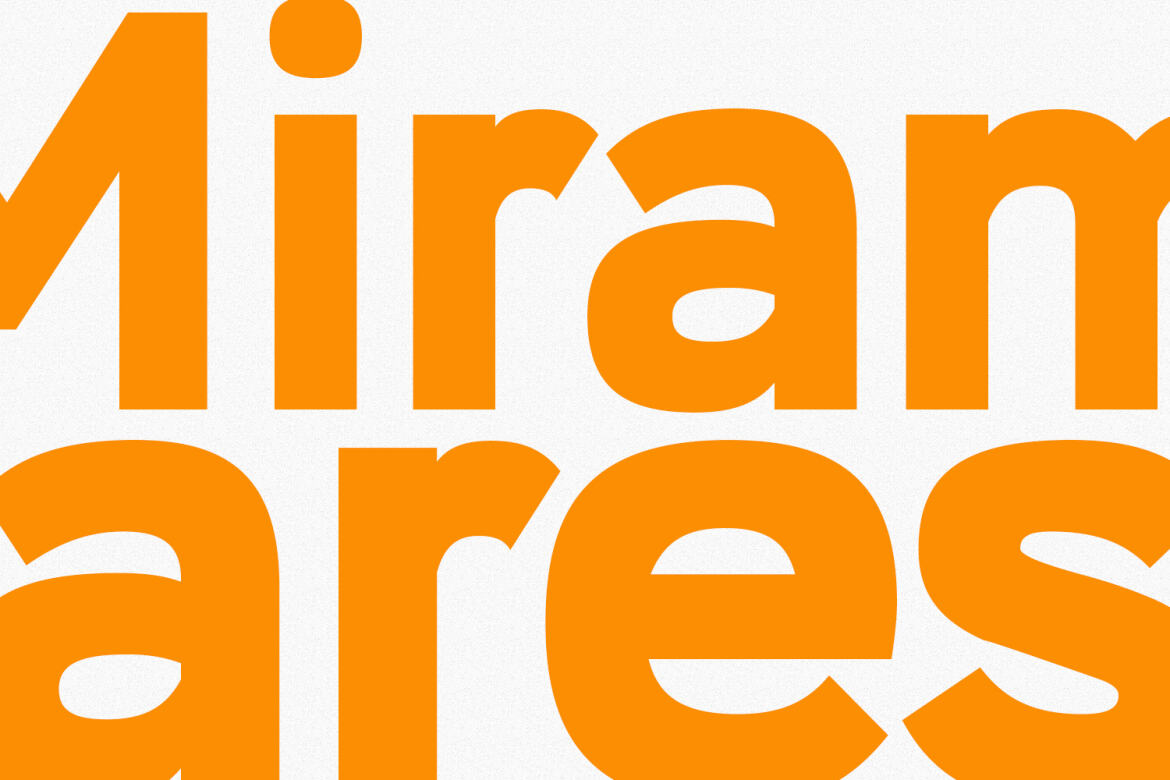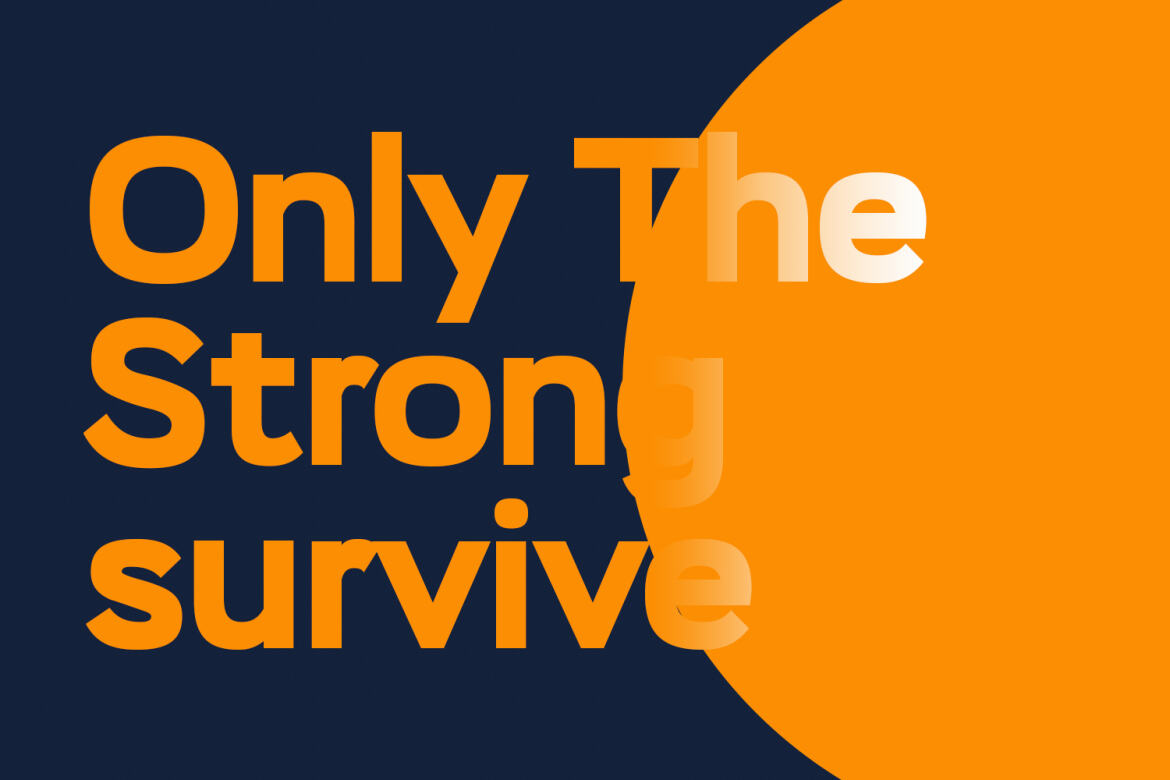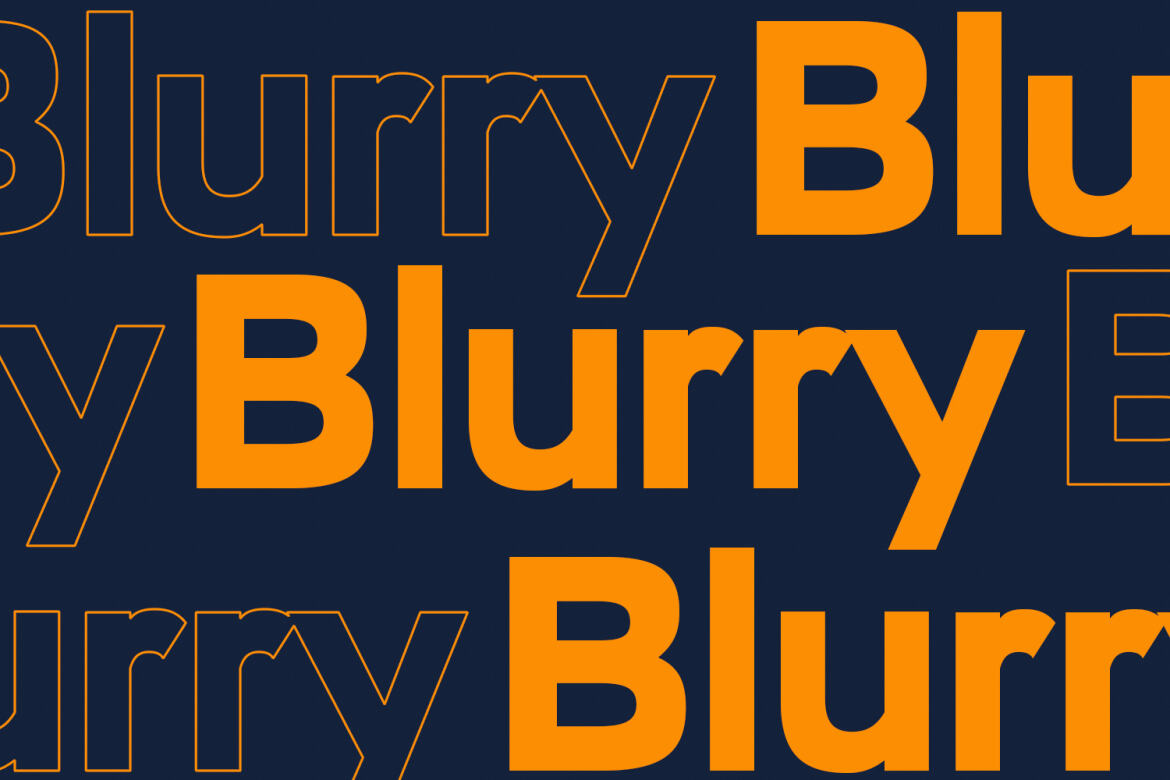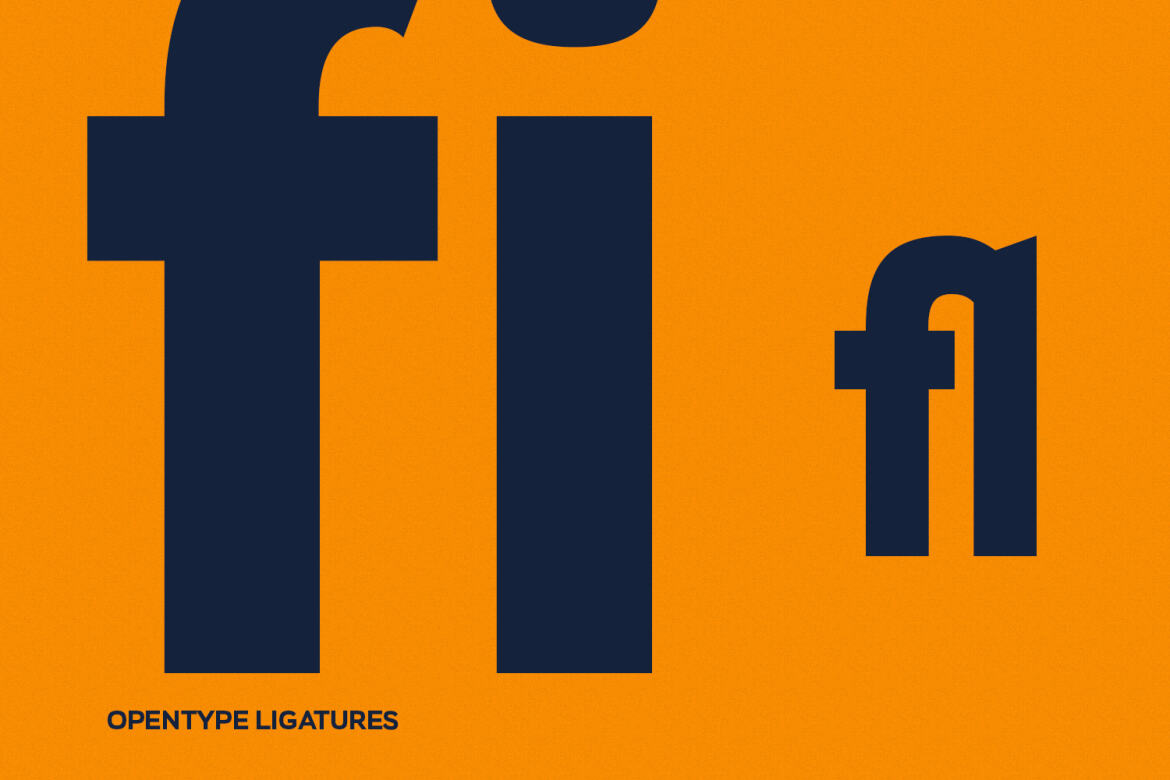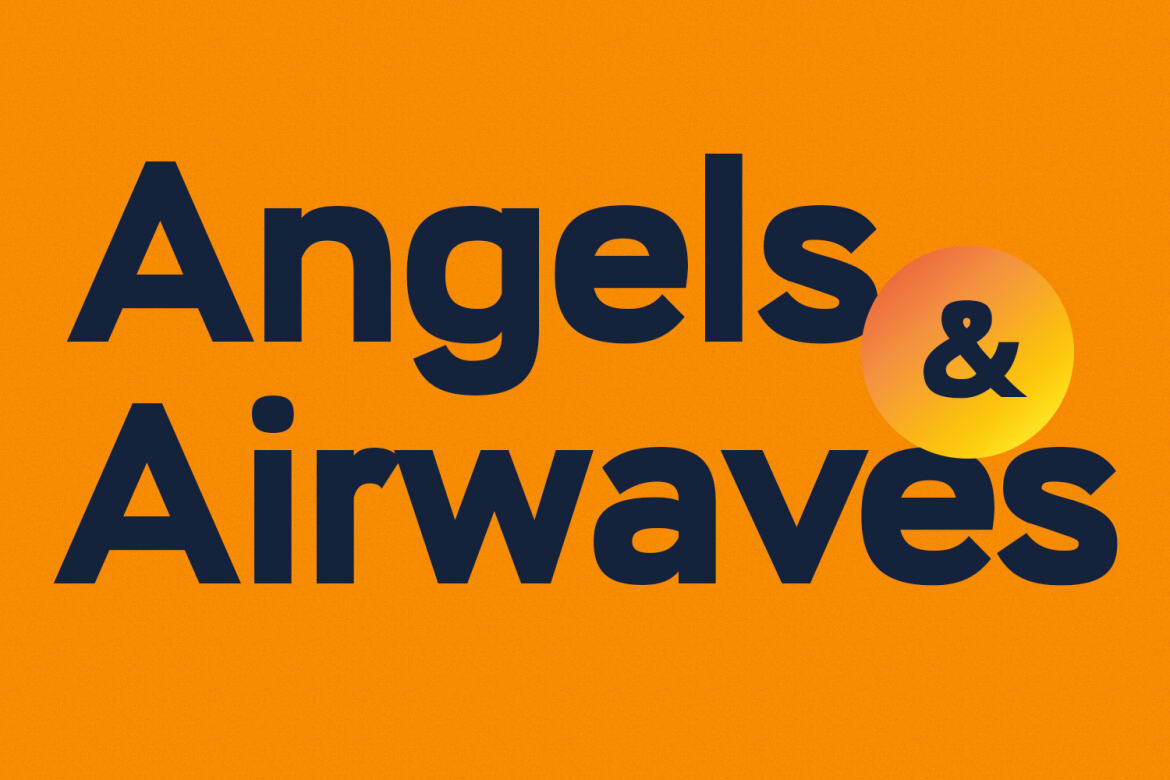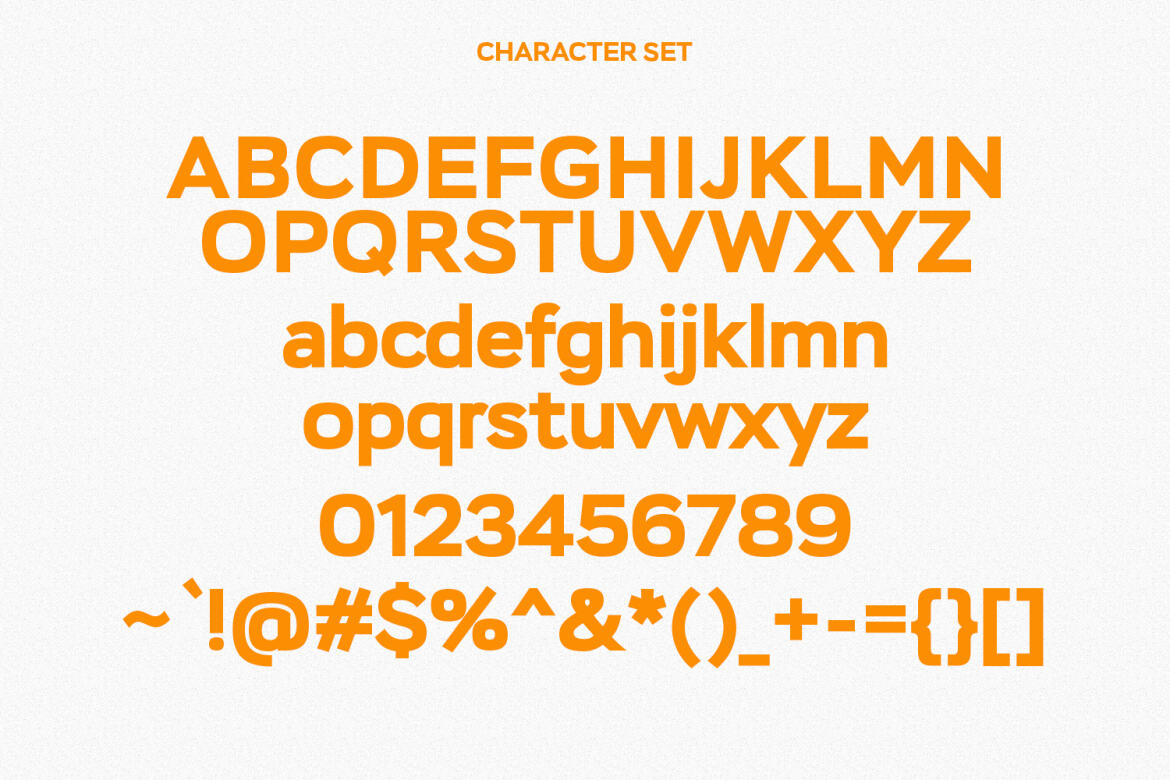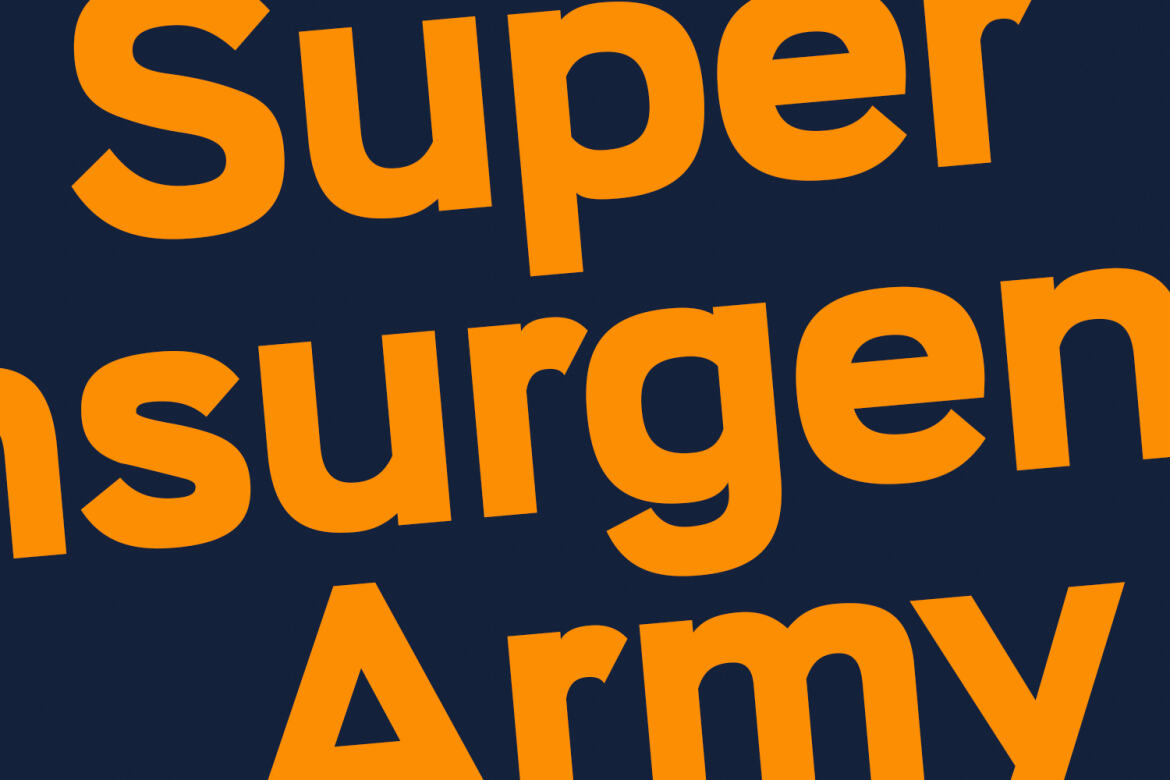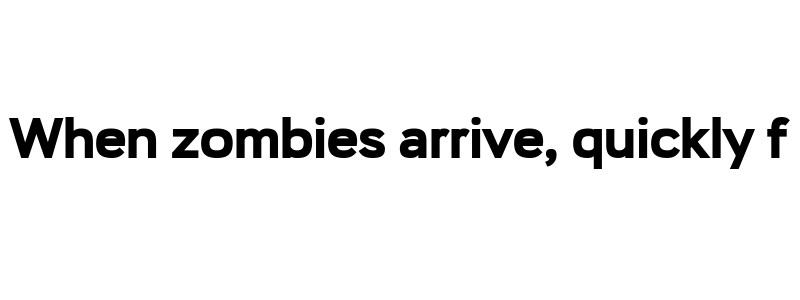
Geora Sans FREE Font
Geora Sans
Geora is a simply semi-geometric sans serif font. With medium low contrast stroke, fun character with a bit of ligatures and alternates. To give you an extra creative work. Geora font support multilingual more than 100+ language. This font is good for logo design, Social media, Movie Titles, Books Titles, a short text even a long text letter and good for your secondary text font with sans or serif. Make a stunning work with Geora font.